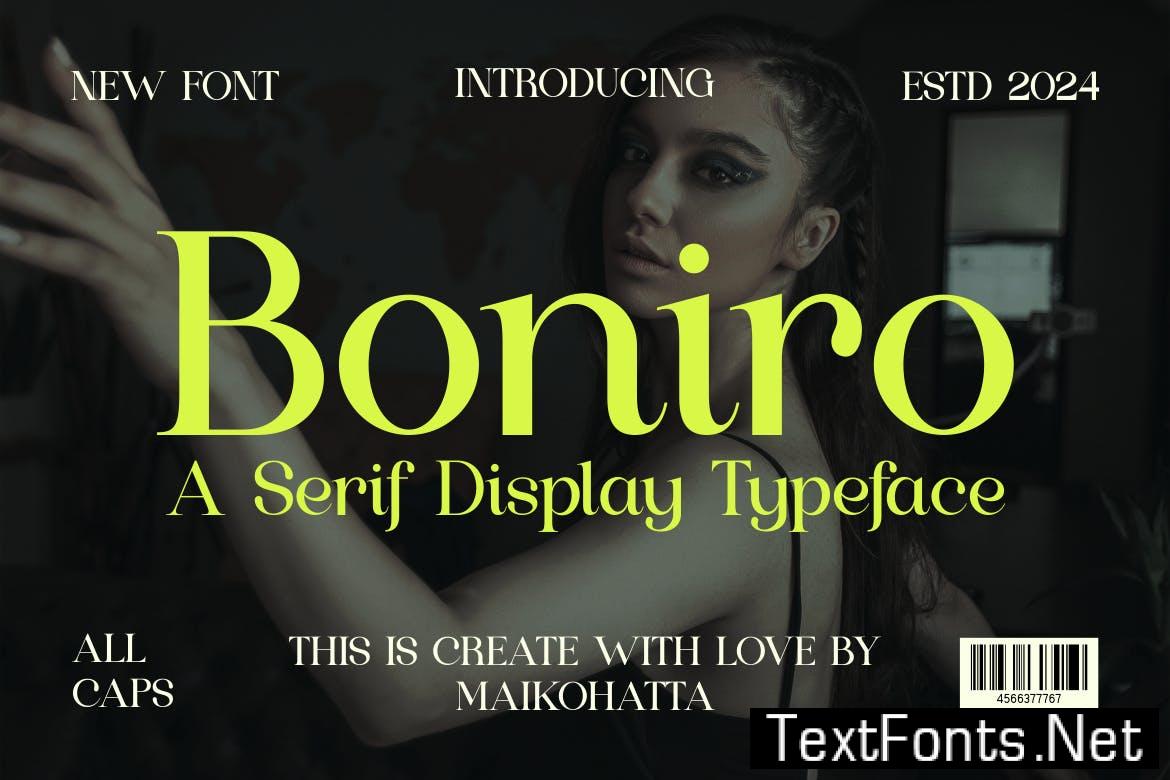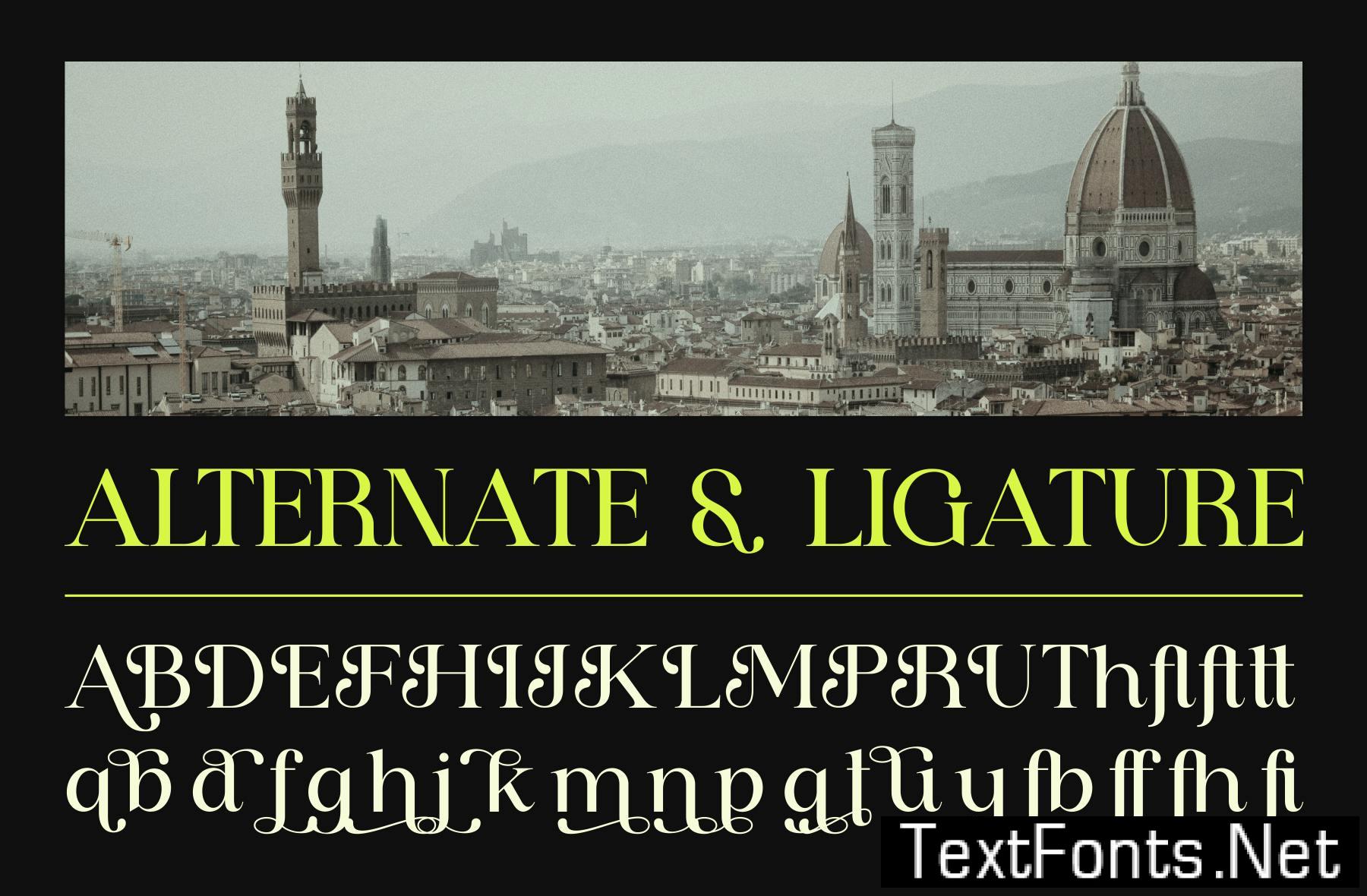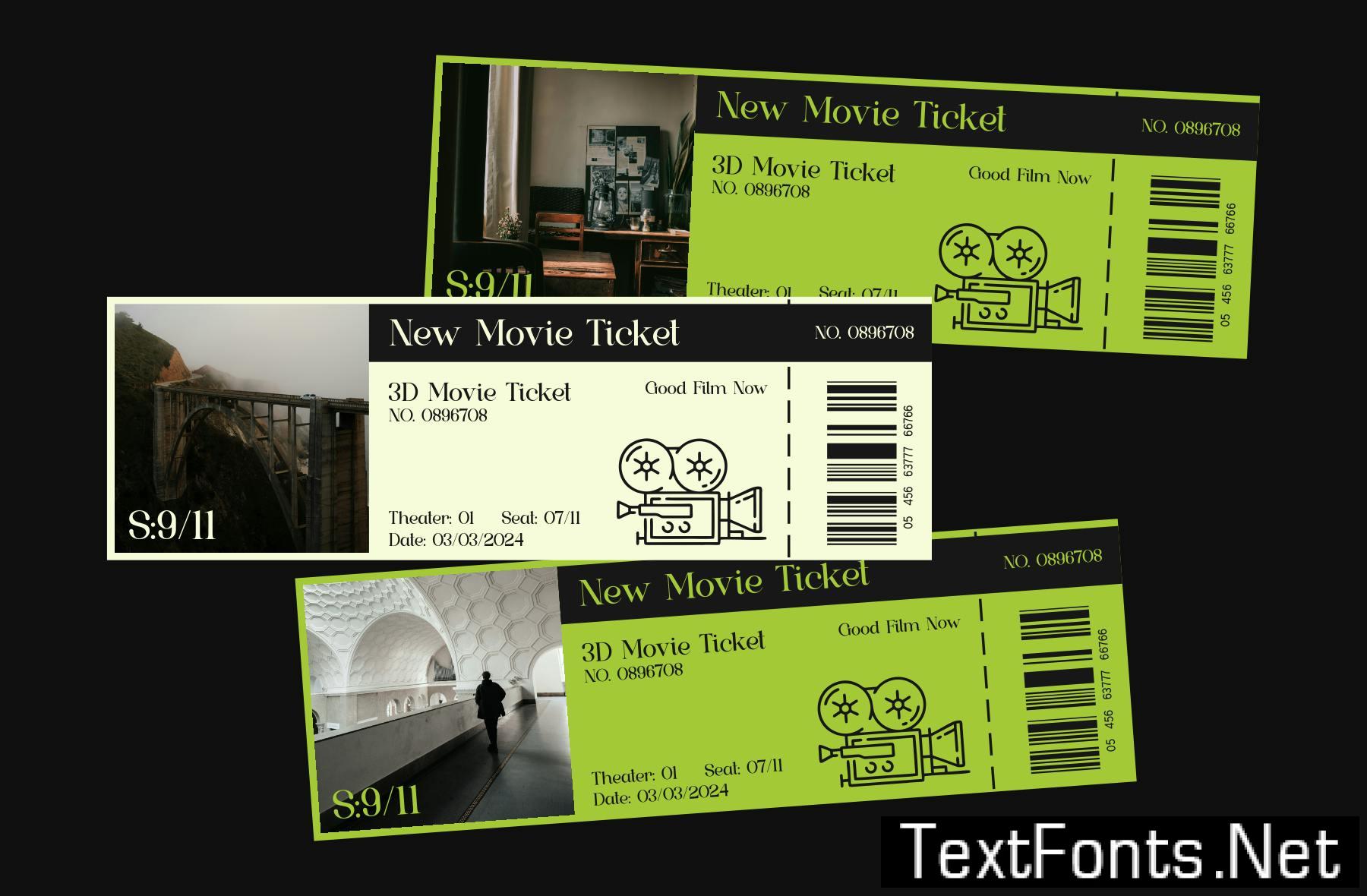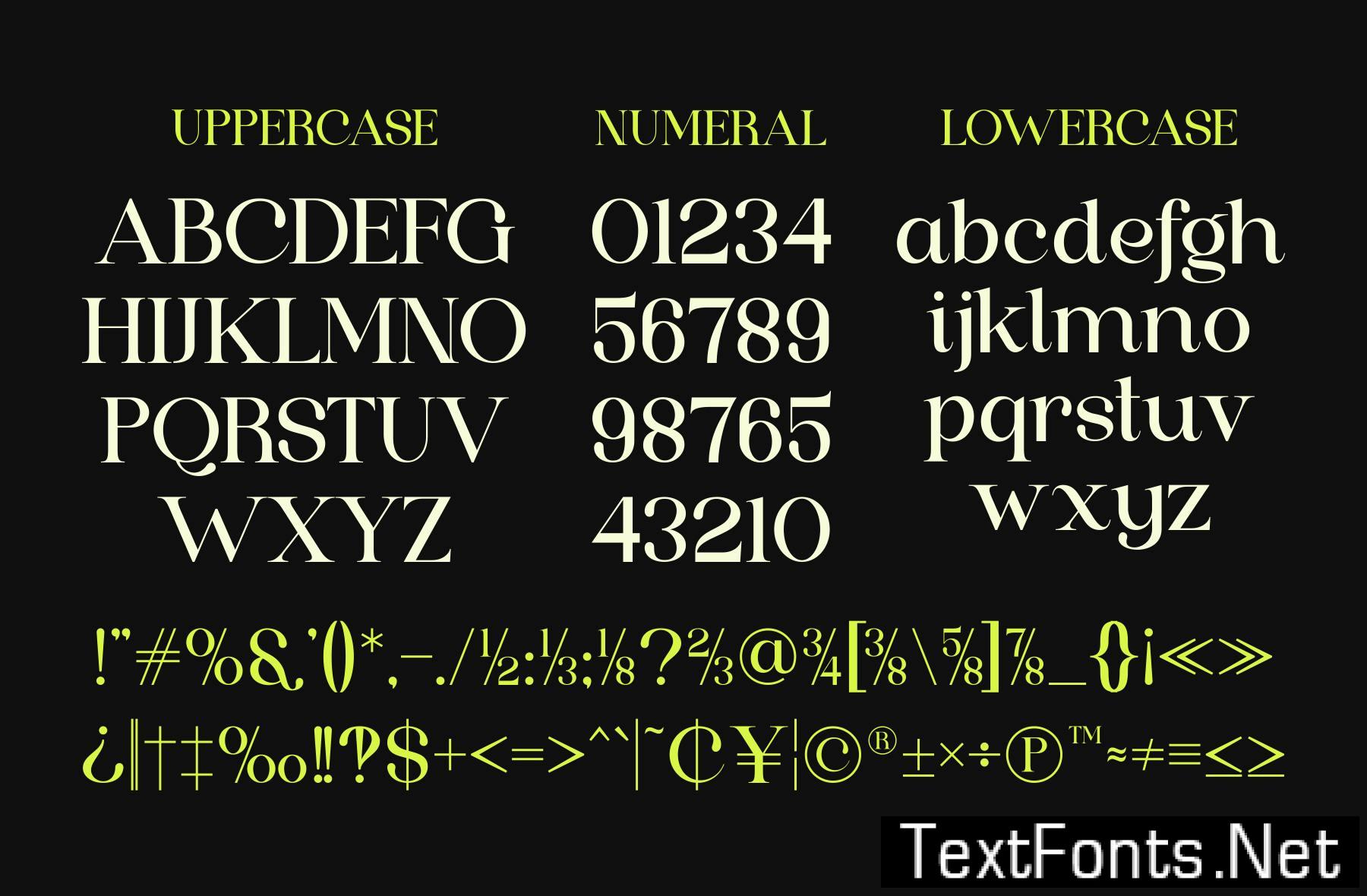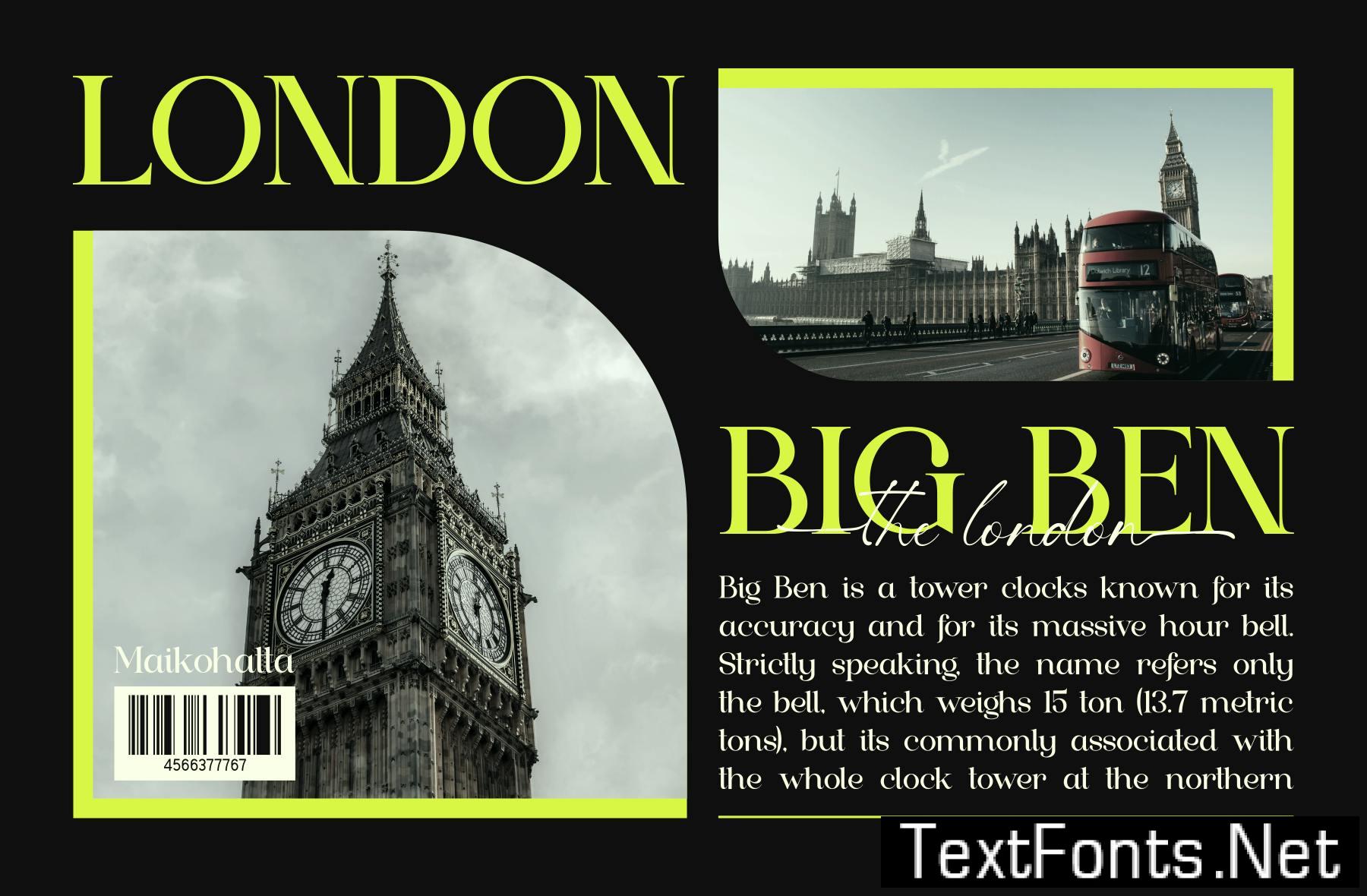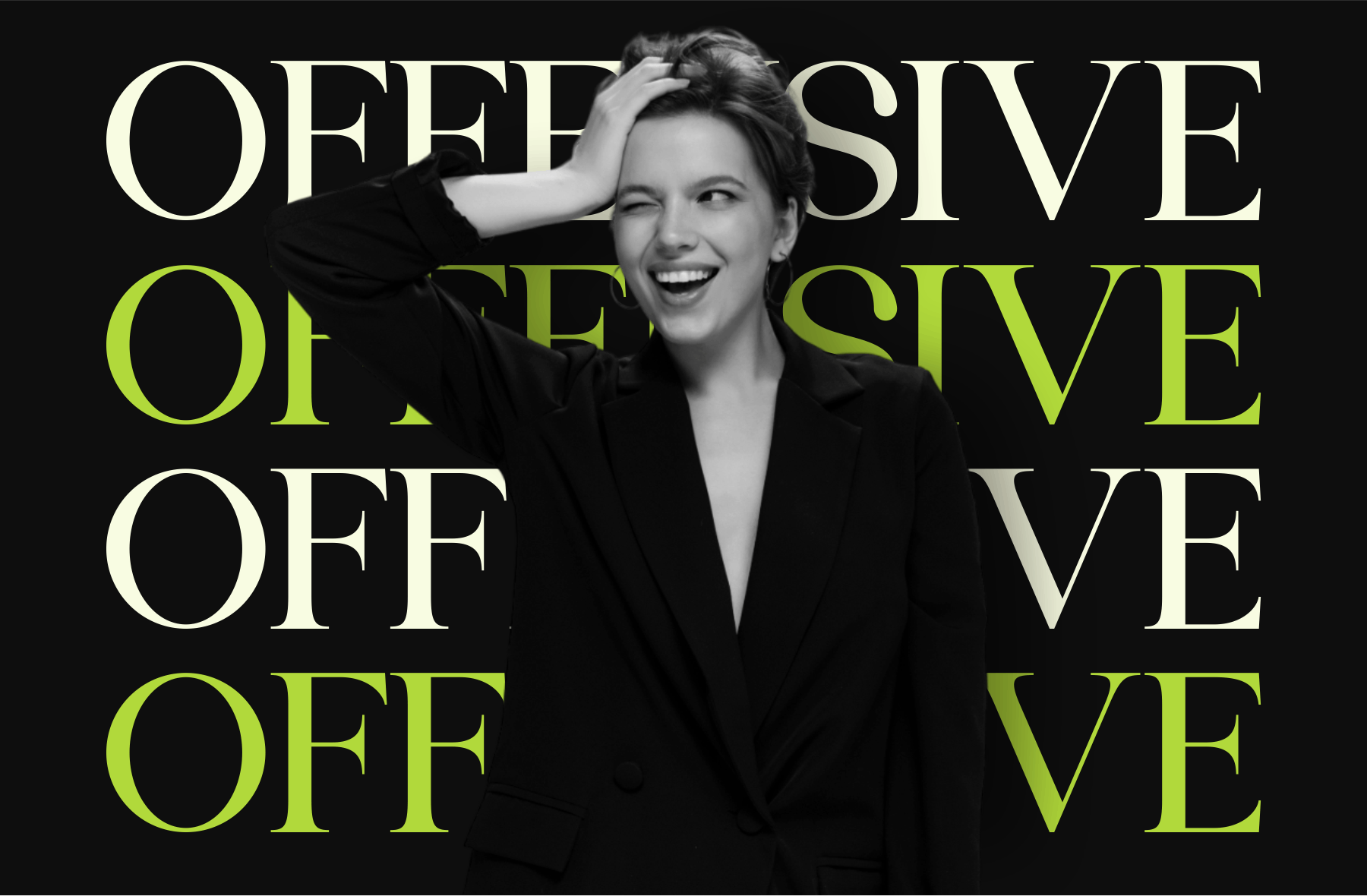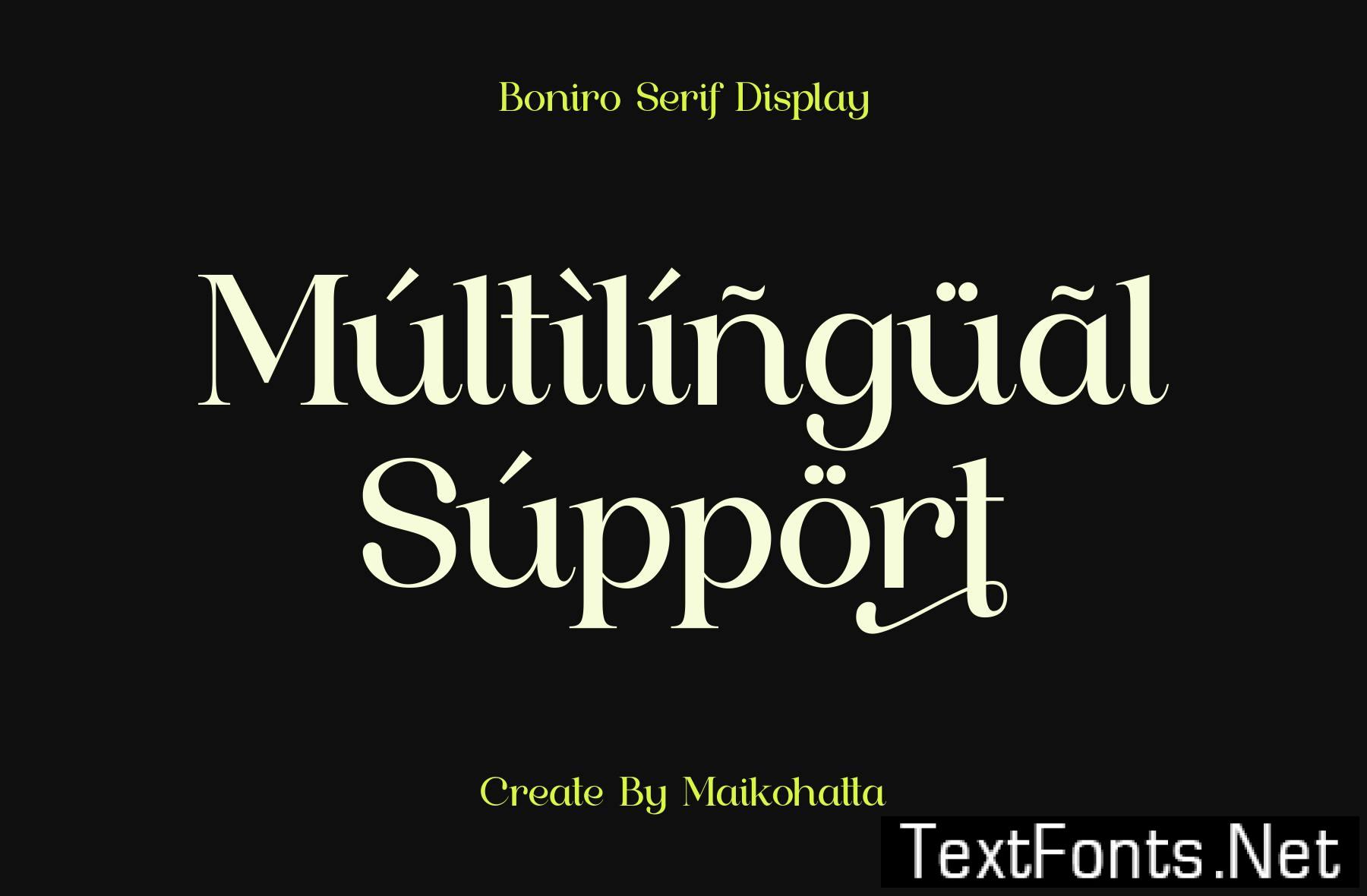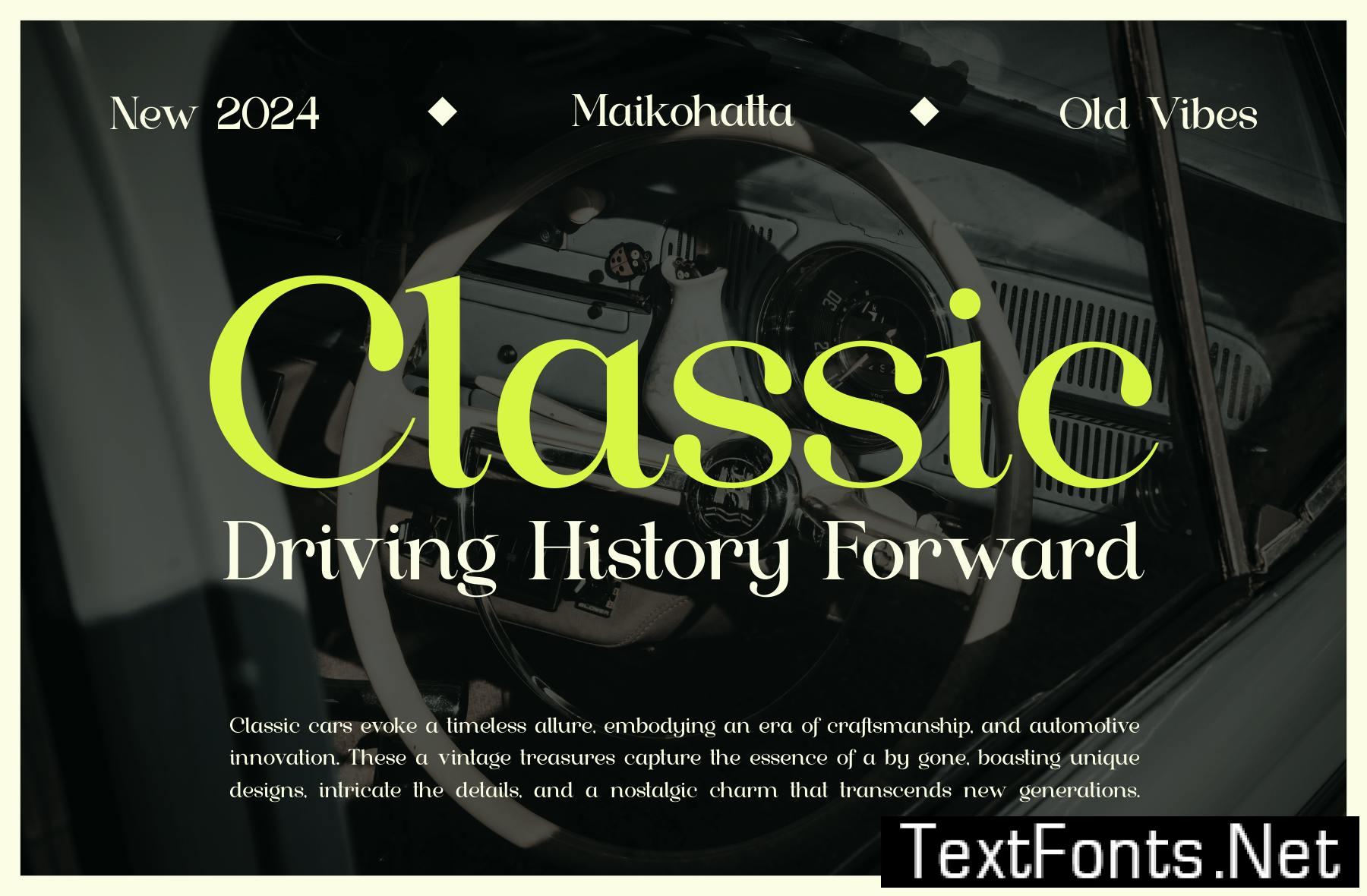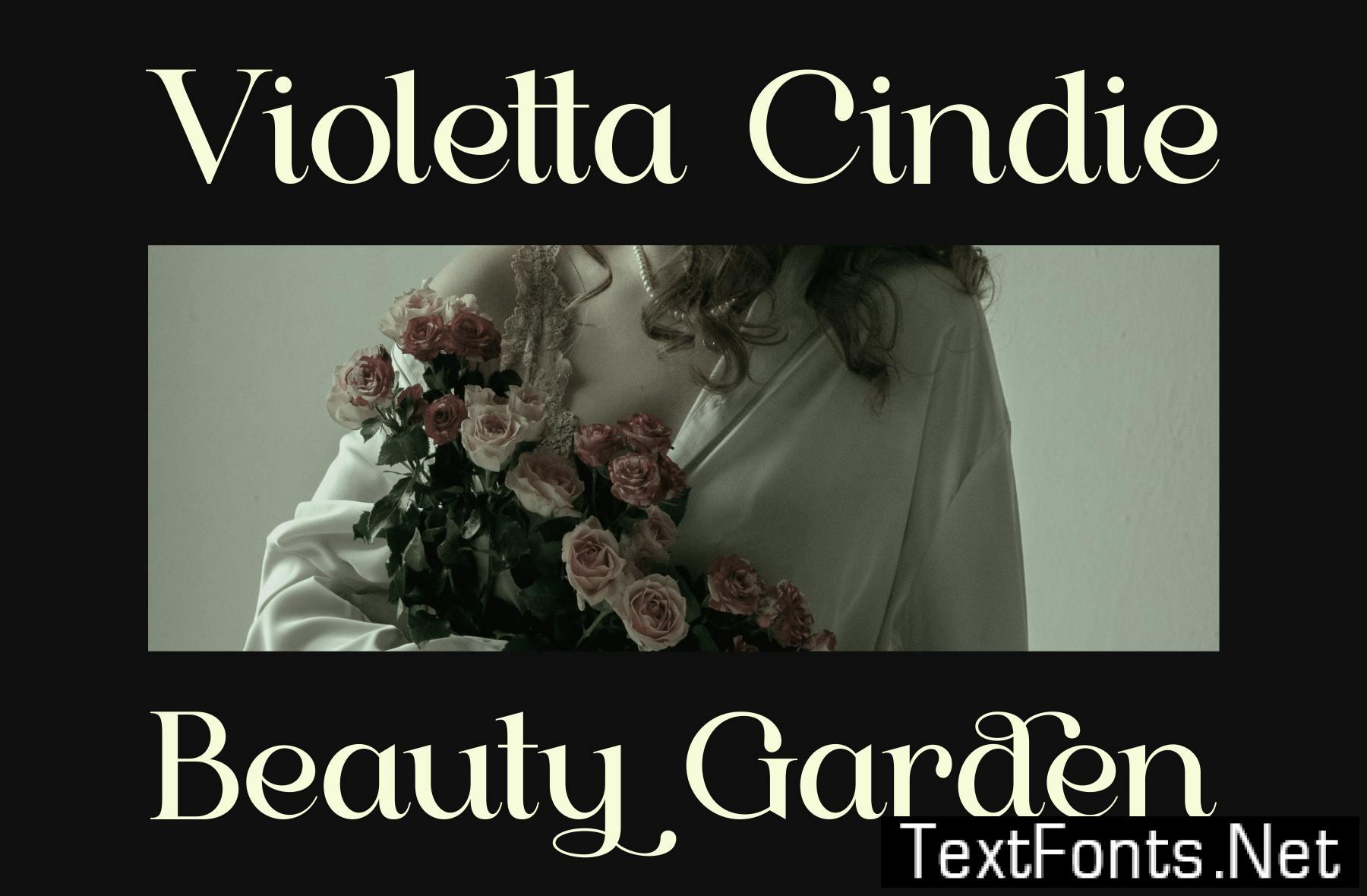
Boniro – Serif Display Typeface 6ZUW56T
Introducing our new product **Boniro** – Serif Display Typeface
This font features a balanced proportion of stroke thickness and fineness, creating attractive and easy-to-read visuals. This modern serif style is often characterized by a bold distinction between thick and thin lines, providing a touch that is understated but still stands out.
* Uppercase
* Lowercase
* Multilingual
* Alternate
* Ligaturespacing: Normal